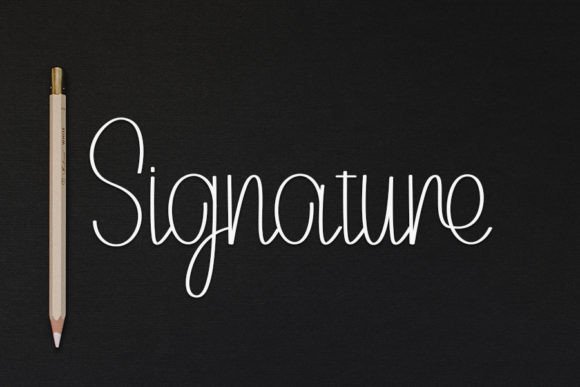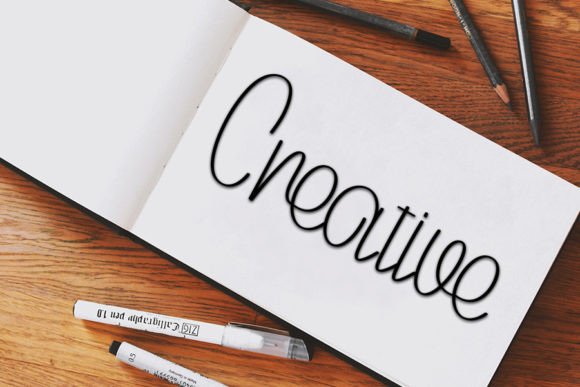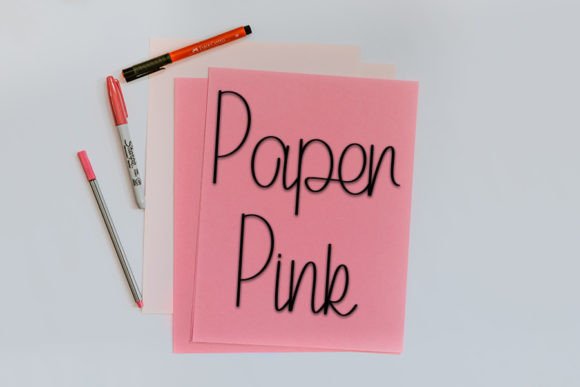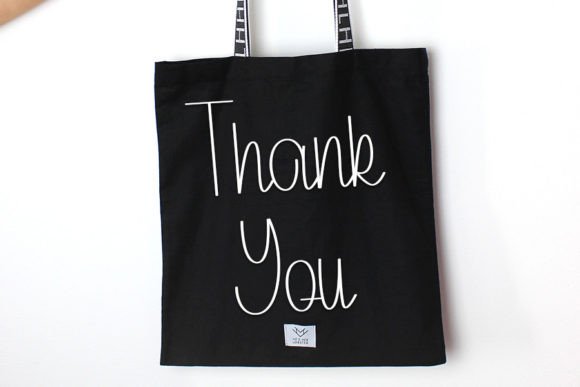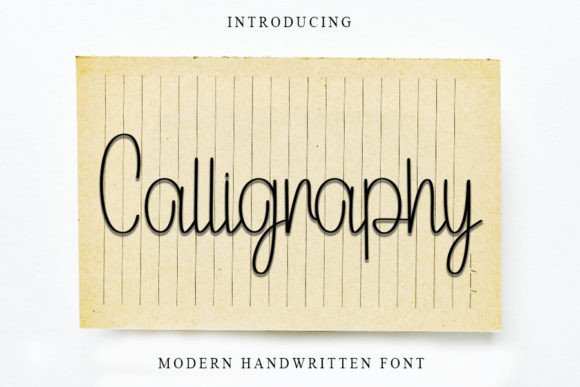
Elevate Your Designs with the Elegance of Calligraphy Fonts
Calligraphy is a neat and beautiful handwritten font described by an elegant touch, perfect for your favorite projects. Fall in love with its incredibly distinct and timeless style, and use it to create spectacular designs! In this article, we’ll dive into the world of calligraphy fonts, exploring their history, characteristics, and uses, as well as providing tips on how to choose the perfect calligraphy font for your next project.
A Brief History of Calligraphy
Calligraphy has a rich history dating back to ancient civilizations, where it was used to create beautiful and intricate writings. The word “calligraphy” comes from the Greek words “kallos” meaning beauty and “graphein” meaning writing. Over the centuries, calligraphy has evolved, with various cultures developing their own unique styles and techniques. From ancient Greek and Roman inscriptions to medieval illuminated manuscripts, calligraphy has played a significant role in the world of art and design.
Characteristics of Calligraphy Fonts
Calligraphy fonts are known for their elegant and flowing lines, often featuring intricate connections and flourishes. They are typically characterized by:
- Flowing lines and curves: Calligraphy fonts often feature smooth, connected lines that create a sense of movement and fluidity.
- Intricate connections: Many calligraphy fonts feature intricate connections between letters, adding to their elegance and sophistication.
- Flourishes and swashes: Calligraphy fonts often include flourishes and swashes, which are decorative elements that add a touch of personality to the text.
- Variations in line width: Calligraphy fonts often feature varying line widths, creating a sense of depth and dimensionality.
Types of Calligraphy Fonts
There are many different types of calligraphy fonts, each with its own unique characteristics and uses. Some popular types of calligraphy fonts include:
- Copperplate Calligraphy: Known for its elegant and refined lines, Copperplate calligraphy is a popular choice for formal invitations and events.
- Brush Calligraphy: Brush calligraphy is a more casual and expressive style, often used for creative projects and artistic designs.
- Spencerian Calligraphy: Developed in the 19th century, Spencerian calligraphy is known for its intricate connections and flowing lines.
Uses of Calligraphy Fonts
Calligraphy fonts are versatile and can be used in a wide range of projects, including:
- Wedding invitations and stationery: Calligraphy fonts are a popular choice for wedding invitations, save-the-dates, and other stationery.
- Logos and branding: Calligraphy fonts can be used to create elegant and sophisticated logos and branding materials.
- Art and illustration: Calligraphy fonts can be used to add a touch of elegance and personality to art and illustration projects.
- Packaging and labeling: Calligraphy fonts can be used to create beautiful and eye-catching packaging and labeling.
Tips for Choosing the Perfect Calligraphy Font
With so many calligraphy fonts to choose from, it can be overwhelming to select the perfect one for your project. Here are a few tips to keep in mind:
- Consider the occasion: Choose a calligraphy font that suits the occasion or purpose of your project.
- Think about the audience: Select a calligraphy font that will resonate with your target audience.
- Look for versatility: Choose a calligraphy font that can be used in a variety of contexts and applications.
- Experiment and have fun: Don’t be afraid to try out different calligraphy fonts and experiment with different styles and techniques.
Calligraphy fonts are a beautiful and elegant way to add a touch of sophistication and personality to your designs. With their flowing lines, intricate connections, and flourishes, calligraphy fonts are perfect for a wide range of projects, from wedding invitations and logos to art and illustration. By understanding the characteristics and uses of calligraphy fonts, and following a few simple tips, you can choose the perfect calligraphy font for your next project and create spectacular designs that will leave a lasting impression.